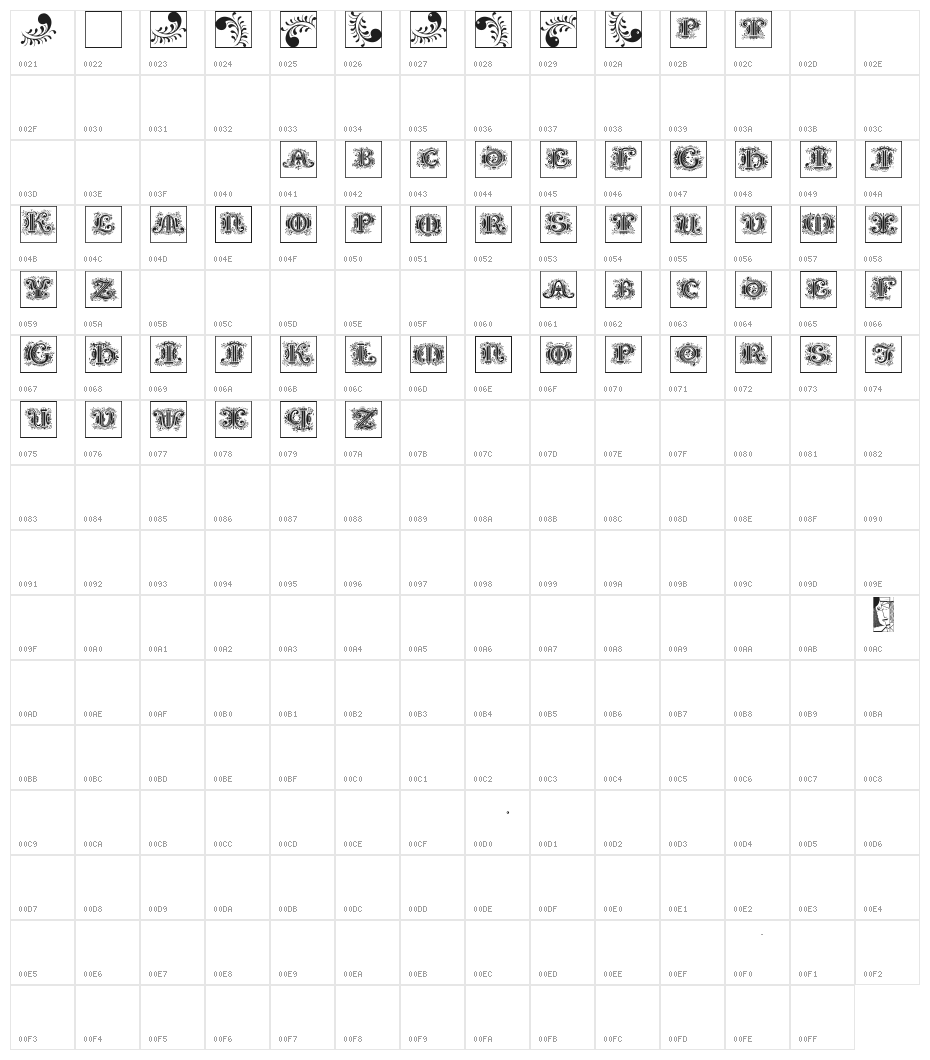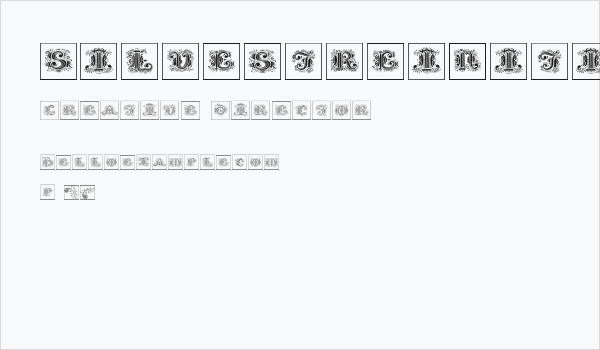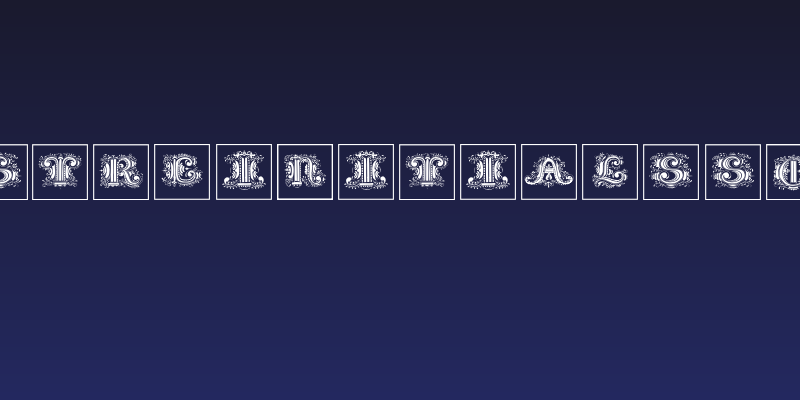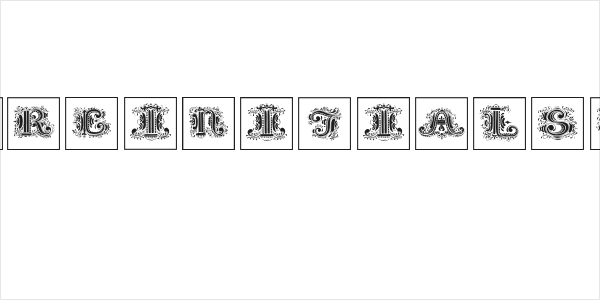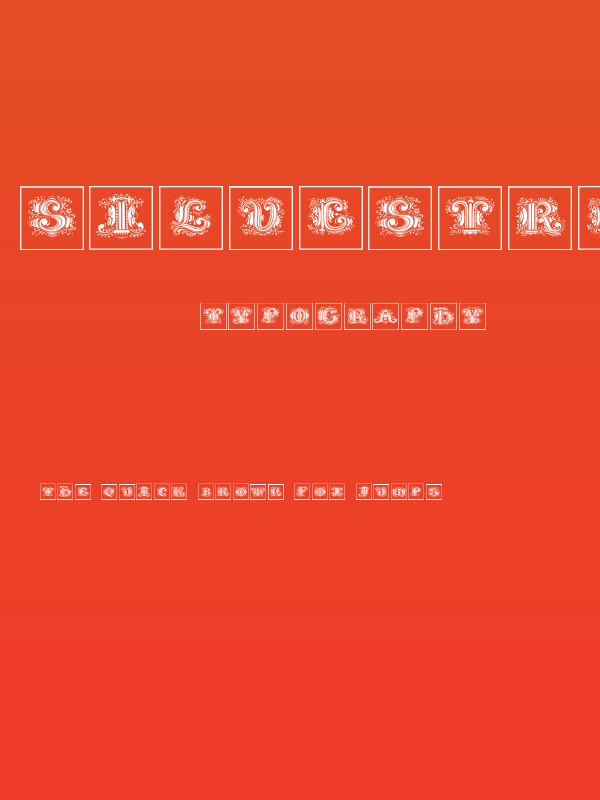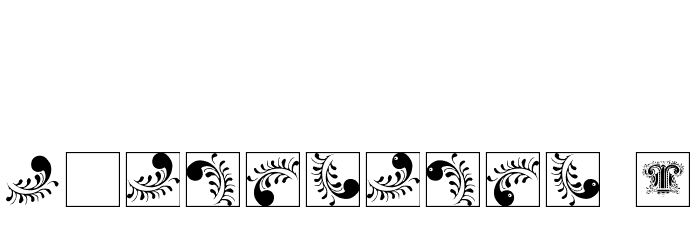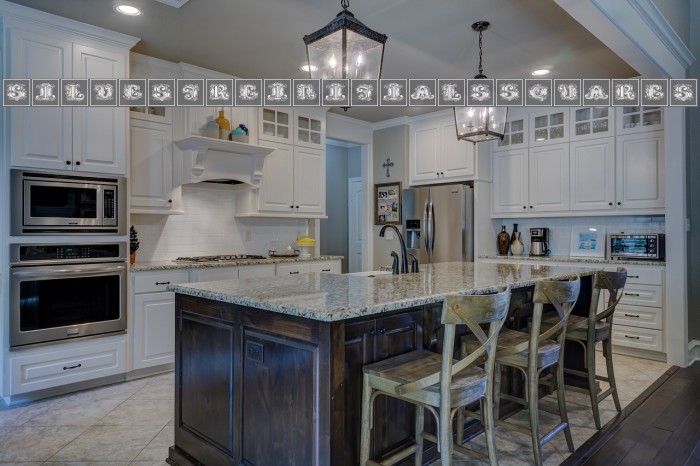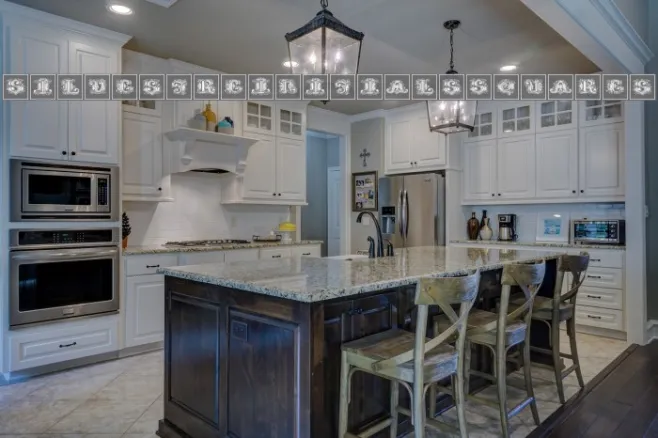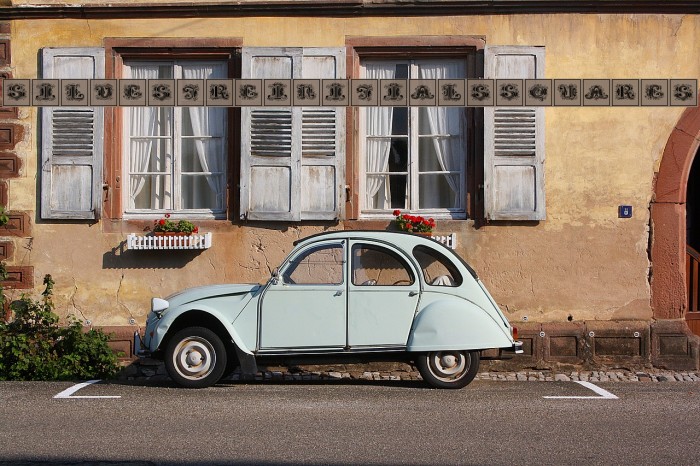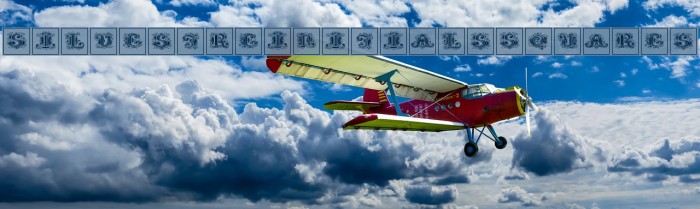
SilvestreInitialsSquares Font
This font features ornate, decorative initials enclosed within square borders. Each letter is intricately designed with floral and vine-like embellishments, creating a vintage and elegant appearance. The uppercase letters are the primary focus, showcasing a high level of detail and artistry. The design is reminiscent of classic illuminated manuscripts, making it ideal for projects that require a touch of historical or artistic flair. The characters are bold and visually striking, with a consistent style across the alphabet. The embellishments add a sense of luxury and sophistication, making this font suitable for special occasions or decorative purposes.
| Overall Style | Vintage |
| Use Case | Logos, Headlines, Decorative elements |
| Proposed Projects | Ideal for wedding invitations, luxury branding, historical themed projects, and decorative book covers. |